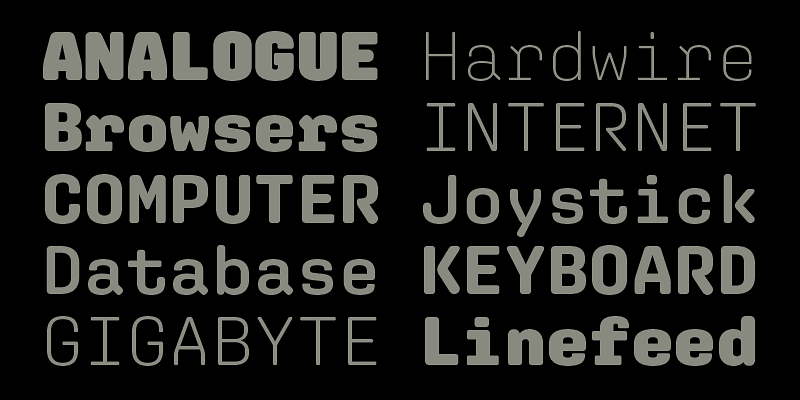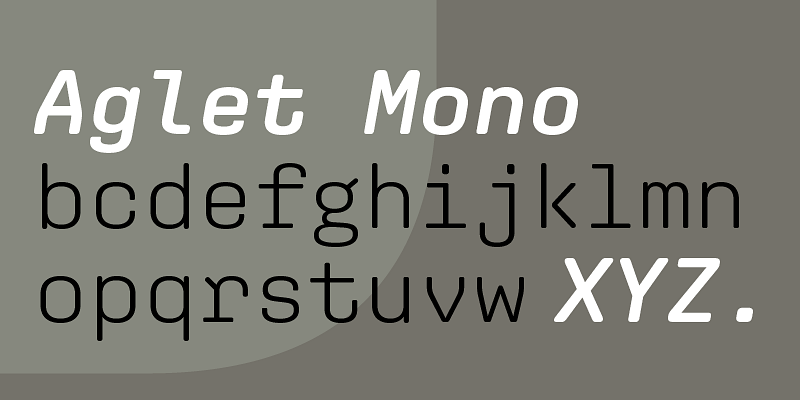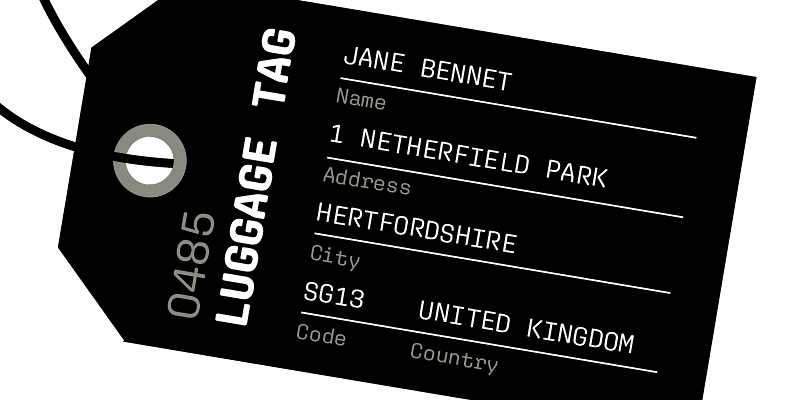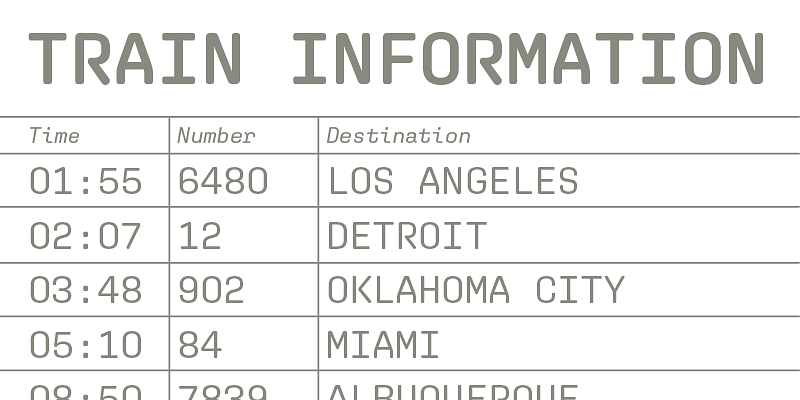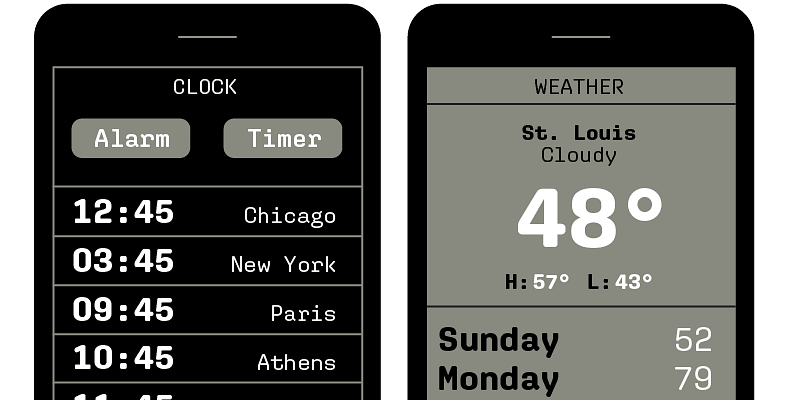
Round architecture informs Aglet Mono, tempering its rigorous, fixed-width rhythm. Clever strategies offset the lopsided spatial artifacts produced by a monospaced design: the dented sides of A, V, W, v, and w compensate for the absence of kerning. Extroverted f, j, r, and t fill their allotted space with curious hooks, and a brazen g supports the calculated weirdness of some of the other glyphs.
Aglet Mono includes a set of useful symbols and comes in fourteen styles, like its relatives Aglet Slab and Aglet Sans. Minimal Extra Light resembles a wireframe of the characters, and the vocabulary of shapes grows increasingly diverse as the weights approach the bulky embrace of Ultra.
A display face at heart, Aglet Mono also translates well to the more intimate, routine demands of code. Its atmosphere is distinctly industrial and technical, but also unstudied and ad hoc. Aglet Mono is a typeface for people who make stuff, whether headlines or software.
XYZ Type
Ben Kiel and Jesse Ragan make useful, quietly offbeat fonts at their independent digital foundry, XYZ Type, which operates in the interwebs between St. Louis and New York. After hiring each other back and forth and realizing they worked well together, the pair launched XYZ Type in 2017 to merge their respective strengths and extensive experience crafting typefaces and lettering for major brands, cultural institutions, and publications.
Their custom and retail projects mutually reinforce one another—some begin life as client commissions, while others are speculative designs that Ben and Jesse believe fill a commercial niche. XYZ Type draws original typefaces and logotypes from scratch, customizes versions of their retail typefaces to tailor them to a client’s specific needs, and fine-tunes client logotype sketches. They thrive on collaboration with people who are as fired up about type as they are.
Energized by history, vernacular lettering, and unorthodox graphic design practice, Ben and Jesse chase new ideas for typefaces that are as clever as they are technologically robust. Their meticulous development process often takes surprising twists and turns, arriving at small but significant moments of discovery that mark XYZ Type’s designs as uniquely theirs.